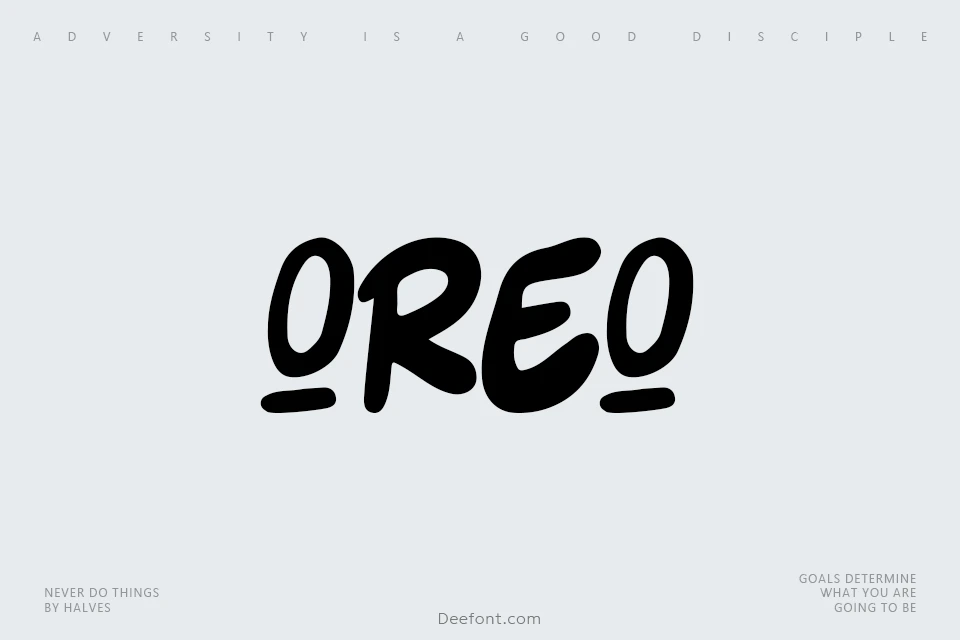
Oreo Display Font
Oreo Display Font is a sweet and playful typeface, perfect for adding a touch of fun to any project. With its rounded, soft edges and bold letterforms, Oreo is highly readable and eye-catching. This font is ideal for headlines, posters, and branding materials where you want to convey a sense of joy and approachability. Its unique character makes it stand out, ensuring your message is delivered with a memorable and delightful twist. Oreo Display Font is versatile and can be used in a variety of designs, from children’s books to product packaging, giving your work a fresh and appealing look.